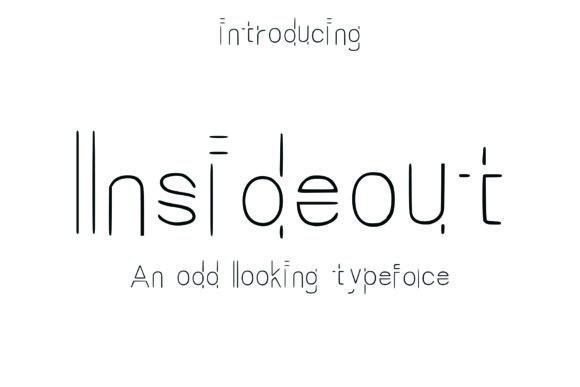
Inside Out Font Download :If you’re looking to bring an edgy, playful twist to your designs, the Inside Out Font is sure to catch your eye. Unlike any typical typeface, Inside Out was designed by removing the outside of every letter and number, leaving only the inner strokes. The result? A quirky, creative font that feels simultaneously modern, minimalist, and slightly retro — perfect for making your text stand out in the coolest possible way.
What Makes Inside Out Font Special?
Unlike most display fonts that rely on bold outlines, shadows, or elaborate decoration, Inside Out Font flips the design script. Instead of drawing around each letter, it keeps only the inner contours — the unexpected spaces you don’t normally see.
✨ Key highlights:
Distinctive “cut‑out” or negative space look
Geometric yet slightly irregular shapes
Works best at medium to large sizes
Eye‑catching but still legible
Instantly adds personality to designs
The result is playful, artistic, and modern — a typeface that almost feels like an optical illusion.
Why Designers Love Inside Out Font
🌟 Unique Visual Identity:
Perfect for projects that need to break away from the ordinary.
🧠 Creative Concept:
A fresh take on typography that invites viewers to look twice.
📐 Versatile Style:
Pairs surprisingly well with both minimalist designs and bold, colorful graphics.
⚡ Great for Headlines:
Grabs attention instantly without needing extra effects.
🛠 Adds Character:
Even simple words look custom‑designed and memorable.
Best Uses for Inside Out Font
Inside Out Font isn’t for body text — it’s a true display font, meant to shine where you need impact:
✅ Posters & Flyers:
Titles and event names look ultra‑modern and artistic.
✅ Album Covers & Merchandise:
Perfect for music projects, streetwear designs, or limited‑edition prints.
✅ Branding & Logos:
Add originality to creative businesses, art collectives, or boutique labels.
✅ Social Media Graphics:
Standout quotes, sale announcements, or YouTube thumbnails.
✅ Packaging Design:
Product names, slogans, or labels that feel instantly distinctive.
Design Tips for Using Inside Out Font
✨ Use at Large Sizes:
The inner details look best when text is big.
🎨 Pair with Simplicity:
Match with clean sans‑serif fonts or flat backgrounds so the font stands out.
🌈 Add Color:
Gradient fills, neon colors, or metallic textures can emphasize the negative space.
🖼 Try Layer Effects:
Overlay on photos, patterns, or subtle textures for depth.
📏 Mind Readability:
Avoid long paragraphs — Inside Out Font works best for short titles and phrases.
Creative Design Ideas with Inside Out Font
🛍 Streetwear T‑Shirt:
Single word like “INSIDE” or “URBAN” in large letters.
🎶 Music Festival Poster:
Band names in Inside Out Font over colorful abstract art.
📱 Instagram Quote:
Bold motivational word in Inside Out Font, paired with minimalist background.
📦 Product Label:
Unique product name or tagline in the font for a modern craft brand.
🎨 Art Print:
Custom typography poster featuring a favorite phrase.
Why Inside Out Font Stands Out
While many display fonts rely on heaviness and boldness, Inside Out Font makes its statement through subtraction. By removing the outside edges, it creates a feeling of openness and artistic intrigue — something that feels handcrafted and unexpected.
It’s the kind of font that makes viewers pause, look again, and remember your design.
If it’s a vector font, you can sometimes add strokes or fills in Illustrator.
Final Thoughts: Make a Statement with Inside Out Font
Inside Out Font isn’t just typography — it’s a design conversation starter. Its inside‑out construction and minimalist curves bring creativity and surprise wherever it appears.
From posters and branding to social posts and merchandise, this font transforms words into visual art.